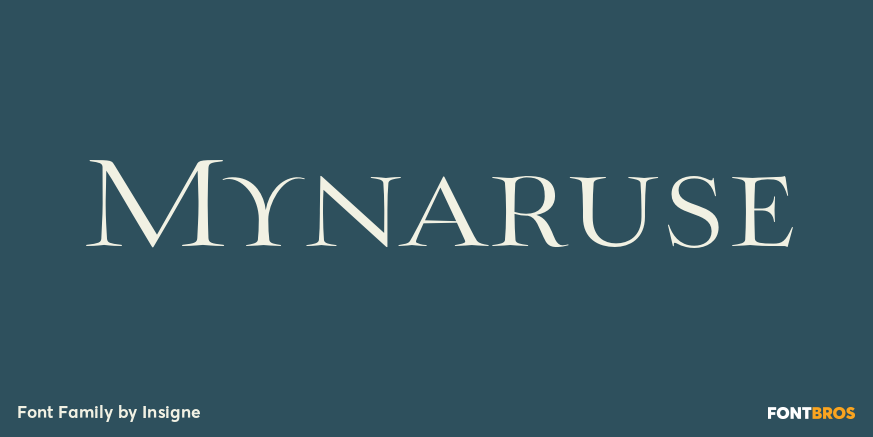
Mynaruse
About Mynaruse
Mynaruse is an elegant and regal roman inscriptional titling family. It has sharp and elongated serifs that give the face extra punch. The face shines in settings that call for elegance and splendor. Mynaruse\’s six weights range from a fine, delicate…